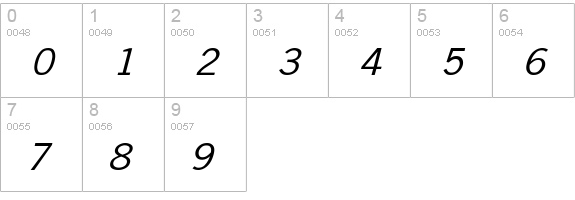
NewsGothicExt 2 Font Details
NewsGothicExt 2 is a versatile and stylish font that combines classic elegance with a contemporary edge. Its clean lines and modern aesthetic make it perfect for a wide range of design projects, from editorial layouts to branding materials. The font exudes professionalism and sophistication, making it a popular choice among designers and creatives. What sets NewsGothicExt 2 apart is that it is available for free download at FontsMarket.com. This means that you can easily access this high-quality font without breaking the bank. Whether you're working on a personal project or a professional assignment, NewsGothicExt 2 offers a sleek and polished look that will elevate your designs to the next level. With its timeless appeal and free availability, NewsGothicExt 2 is a must-have font for anyone looking to add a touch of refinement to their work. Download it today and discover the endless possibilities that this font can bring to your creative projects.